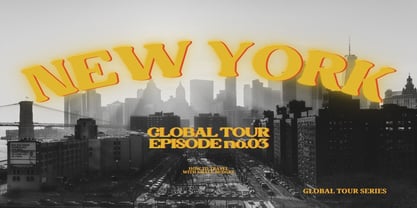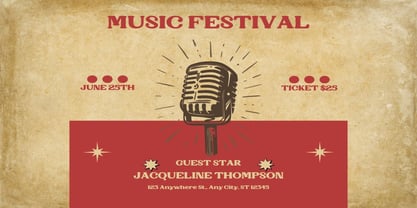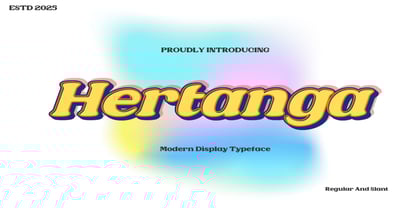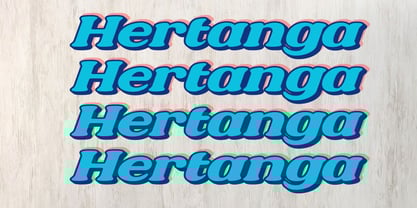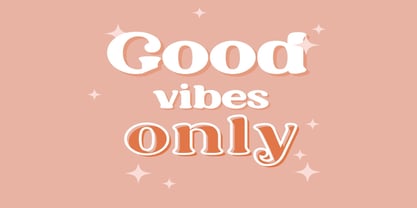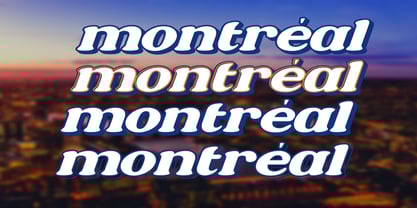
Hertanga
by Dream Font
The Hertanga Font Family was designed by Rosemarie Tissi and published by Dream Font. Hertanga contains 2 styles and family package options.
Hertanga A bold and stylish typeface with a unique mix of vintage charm and modern style., so you can mix and match for the perfect look.
Hertanga also includes ligatures and alternate characters, giving you plenty of options to create eye-catching designs. Plus, with multilingual support, it's ready to bring your work to a global audience.
Perfect for modern or retro-themed designs, whether it’s a trendy menu, standout social media post, food branding, packaging, poster, and more!